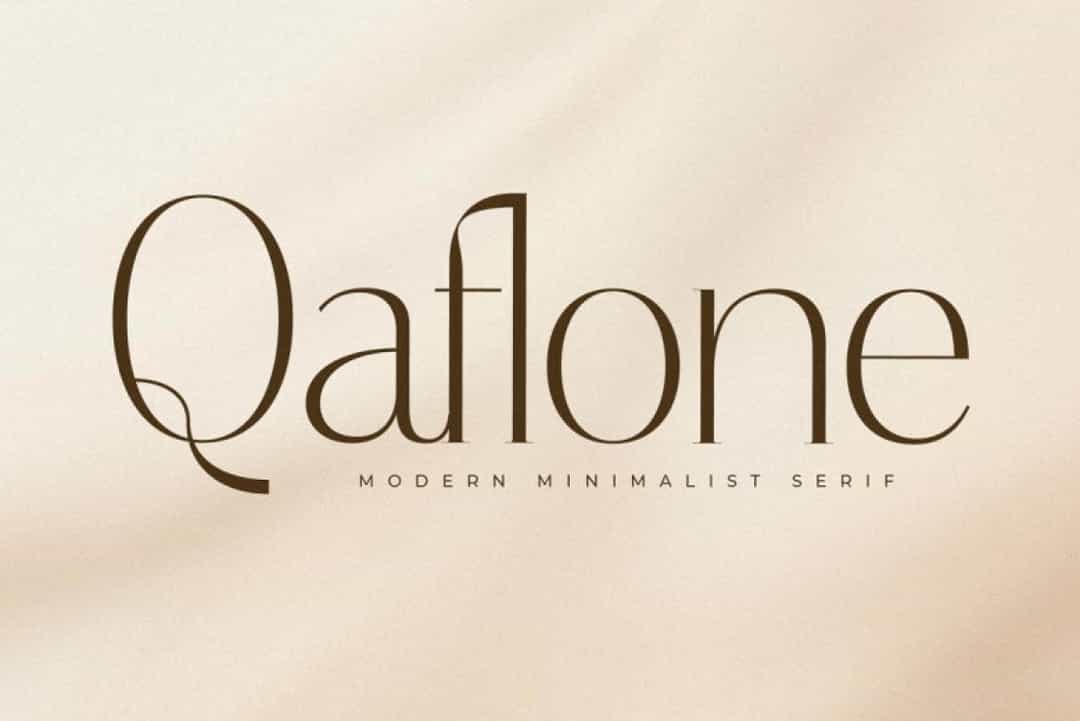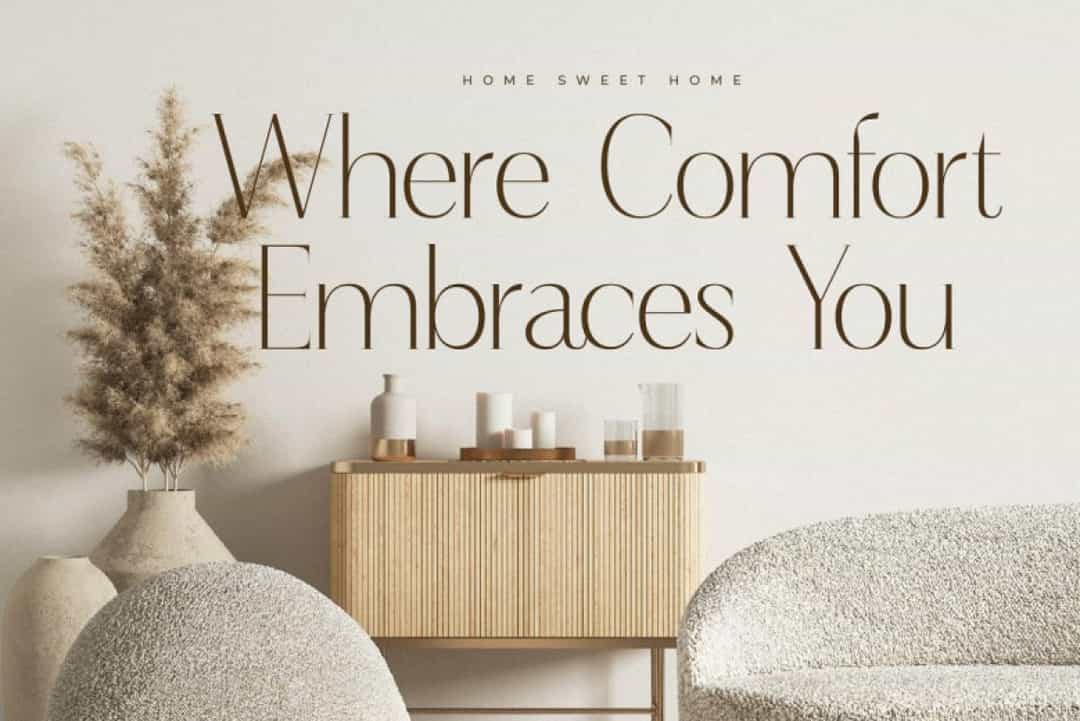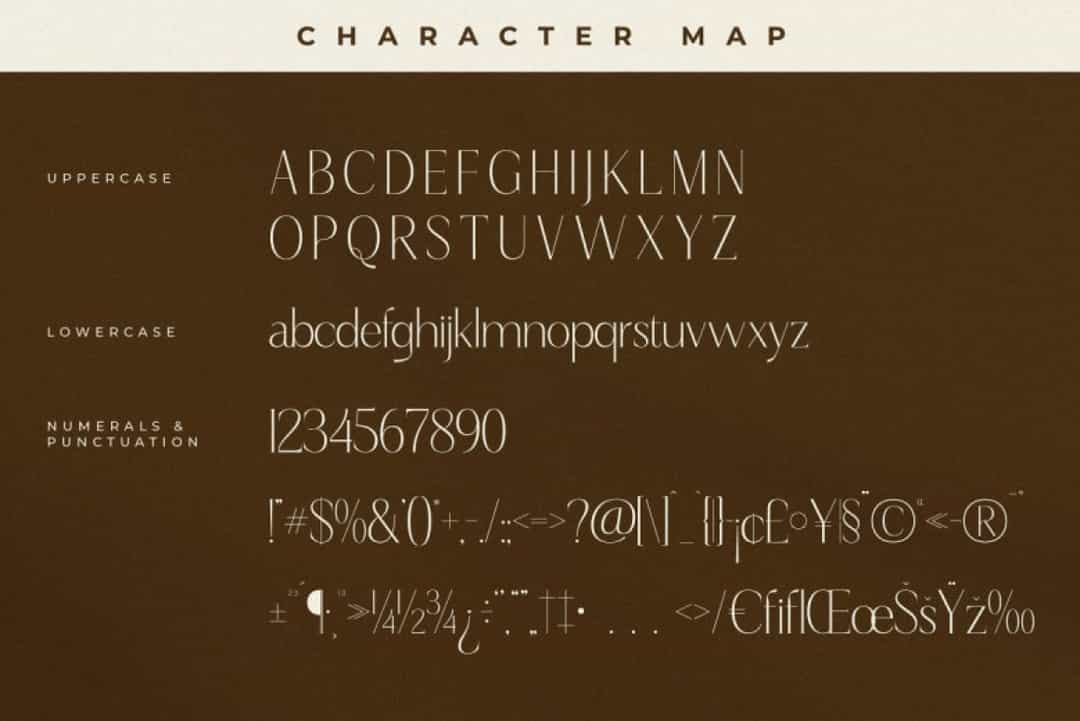
Qaflone is an eye-catching serif typeface designed for modern uses. This timeless typeface boasts its own distinct style and modern appeal, perfect for creating classy logos, movie, book title designs, fashion brand clothing designs, magazines and lettering as well as quotes among many other applications.